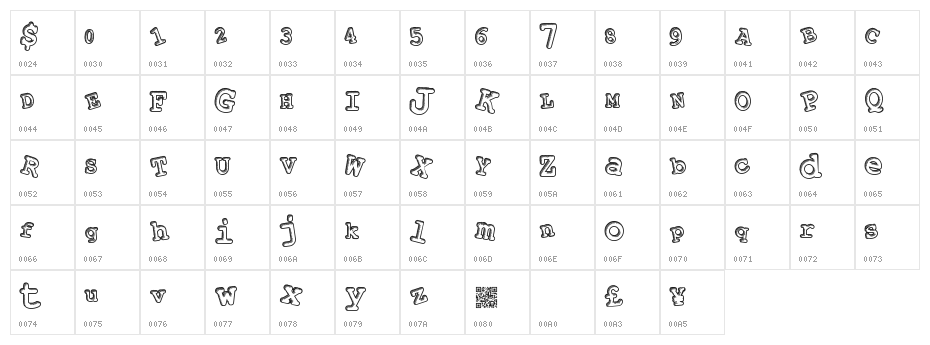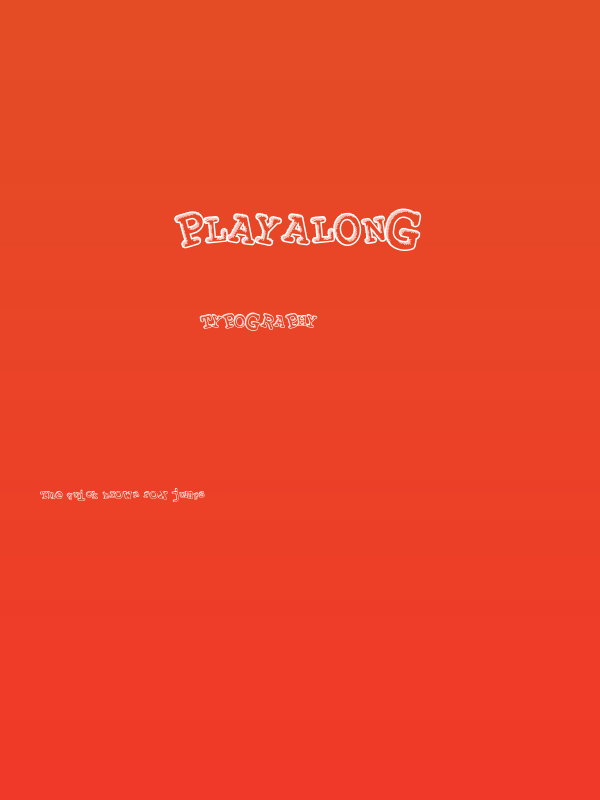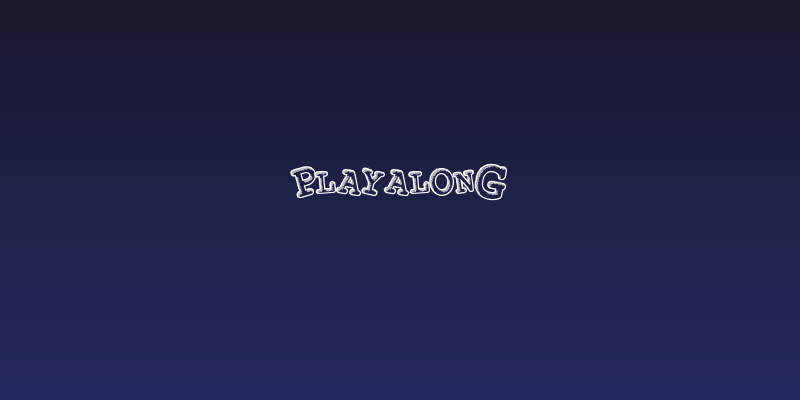
PlayAlong Font
PlayAlong Description
This playful and whimsical font features a bold, hand-drawn style with a textured, sketch-like appearance. Each character is outlined, giving it a three-dimensional effect that adds depth and personality. The letters are slightly irregular, enhancing the casual and fun vibe of the font. It includes both uppercase and lowercase letters, numbers, and a selection of special characters. The font's unique style makes it ideal for projects that require a touch of creativity and playfulness.